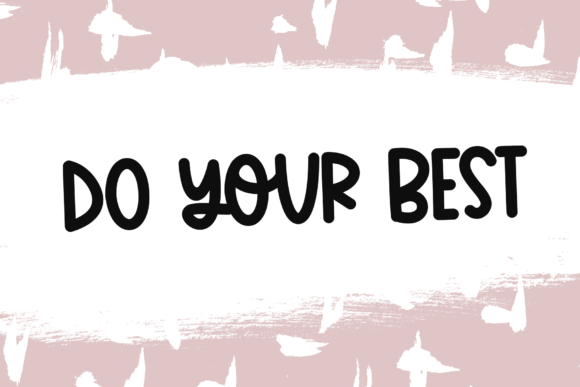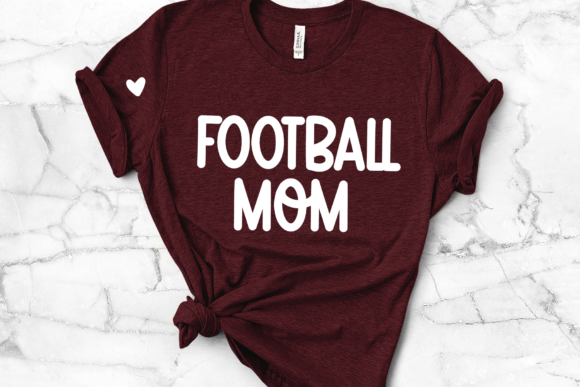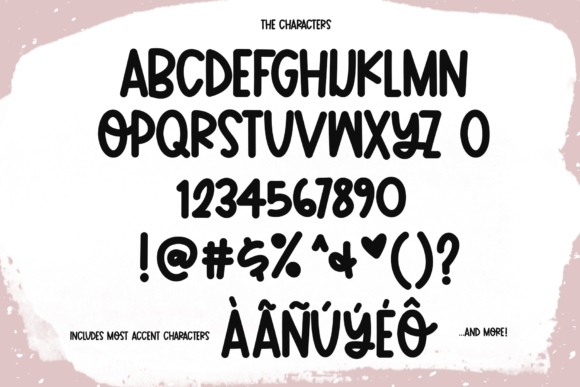
Introduction to Seahorse Font
Remember that moment when you stumbled upon the perfect design element and your creative project suddenly came to life? For many designers, that moment is a game-changer. It’s the spark that sets their imagination ablaze and takes their work to the next level. For us, that moment came when we discovered the enchanting Seahorse Font, a fun and quirky handwritten display font that’s a treasure trove of creative possibilities.
As a valuable design resource, the Seahorse Font offers a high-quality solution for designers seeking to add a touch of whimsy and personality to their work. Whether you’re working on a children’s book, a marketing campaign, or a social media graphic, this font is sure to bring a smile to your face and a dash of creativity to your project.
Key Features of Seahorse Font
- Features a transparent background, making it easy to layer over various backgrounds.
- Supports various languages, making it a versatile design resource for global projects.
Honest Review: Seahorse Font
As a designer, I’m always on the lookout for unique and high-quality design resources to elevate my creative projects. The Seahorse Font is one such find that has caught my attention. With its playful and whimsical design, this font is perfect for adding a touch of fun to any project.
Here are some aspects that work well for the Seahorse Font: ✨
- High-quality design that is both modern and vintage-inspired
- Comes with a transparent background, making it easy to use on any background
However, there are some limitations to consider: ⚠️
- The font may not be suitable for serious or formal projects due to its playful nature
Overall, I’m impressed with the Seahorse Font’s potential to add a creative touch to my projects. While it may not be perfect for every design need, it’s an excellent resource for designers looking for a high-quality, free font that can add some personality to their work.
To get the most out of the Seahorse Font, use it in combination with other design elements to create a cohesive and visually appealing design. Experiment with different font sizes, colors, and layouts to find the perfect look for your project.
The Seahorse Font is commonly used in wedding invitations, baby shower invitations, and other creative projects where a touch of elegance is needed. Its transparent background makes it perfect for creating custom graphics and designs that can be used in a variety of contexts.